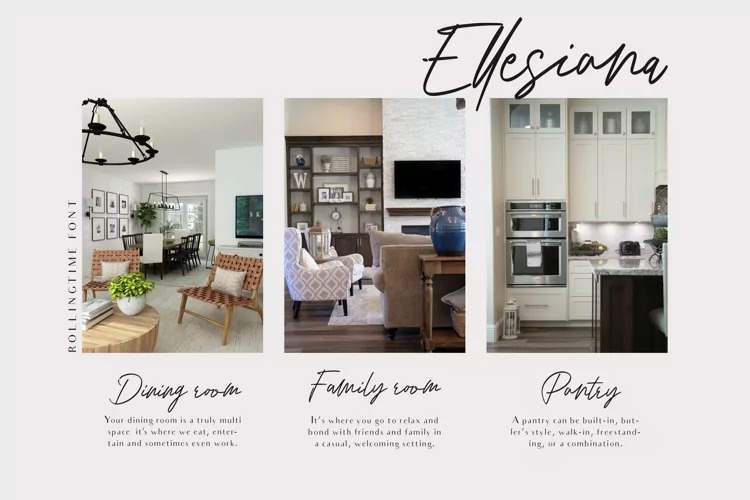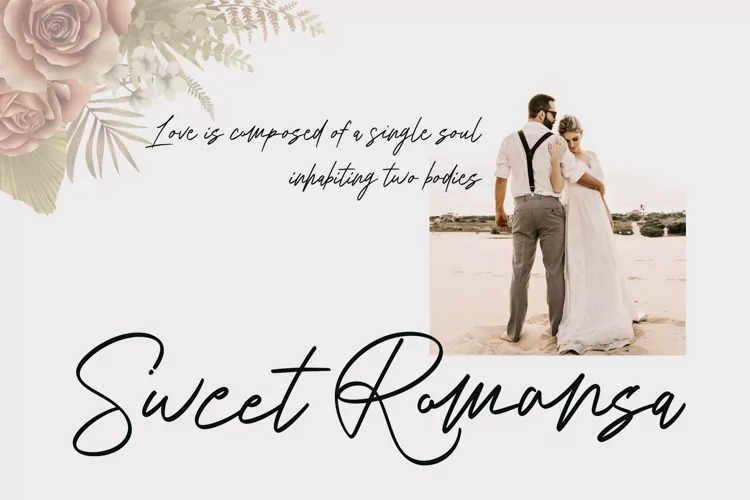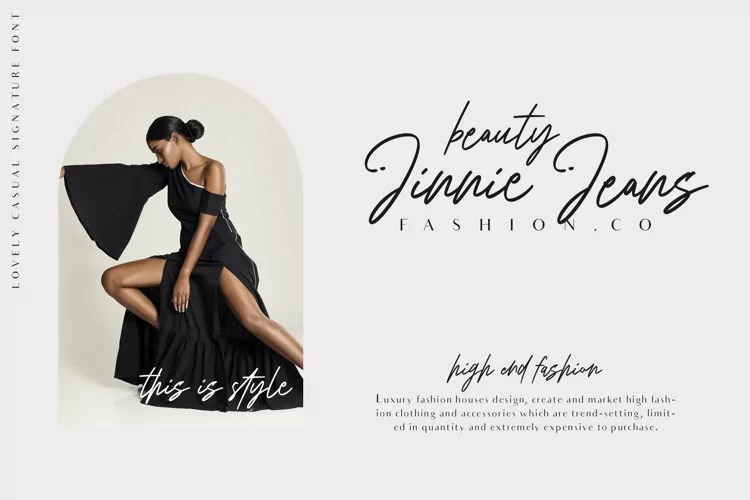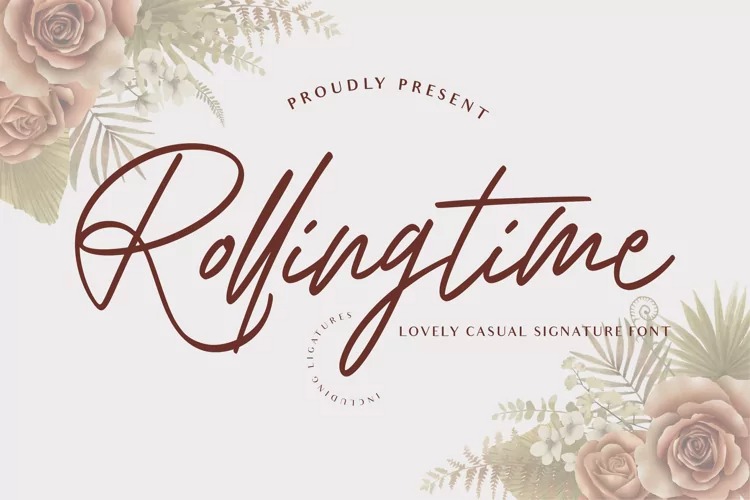
Rolling Time Font
Rolling Time Handwritten Font is a lovely modern signature font, which is combining the style of classic signature with an modern style. It can be used for various purposes such as logos, wedding invitations, headings, t-shirts, letterhead, signage, labels, news, posters, badges and so much more.